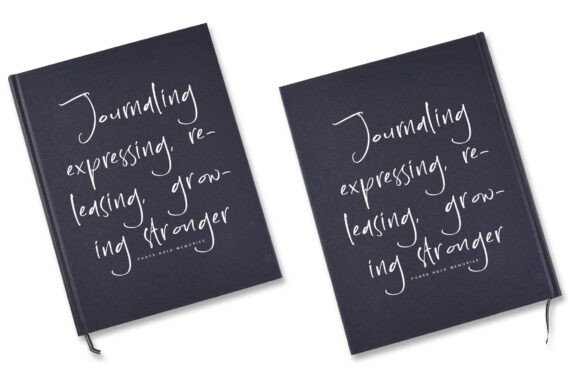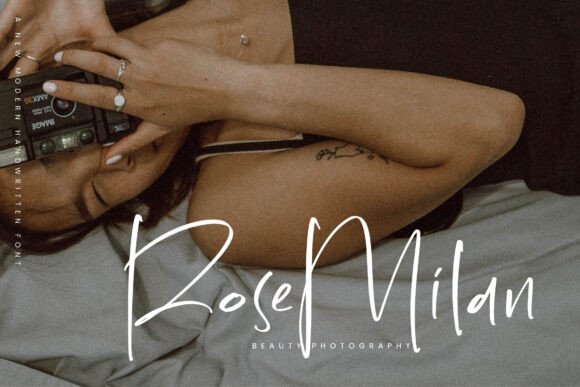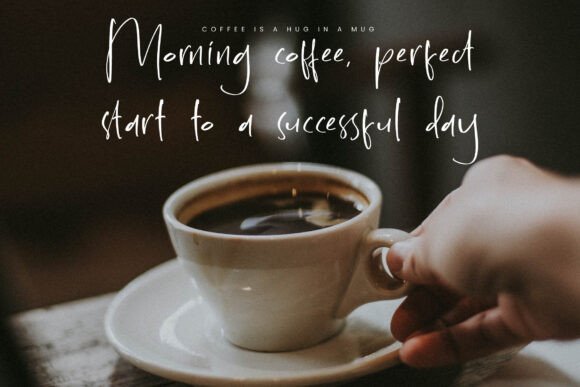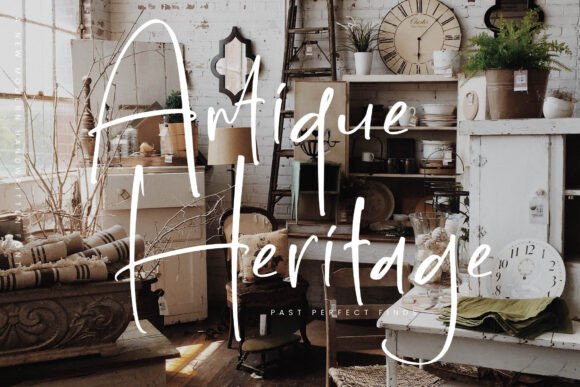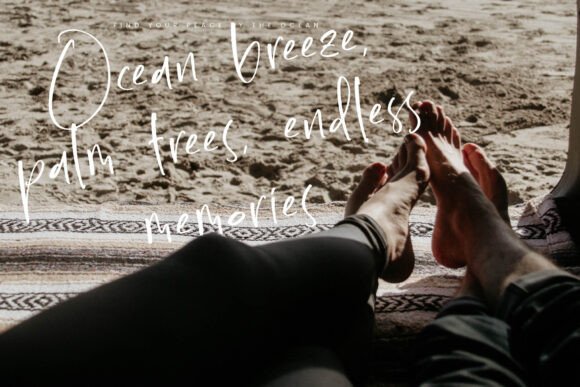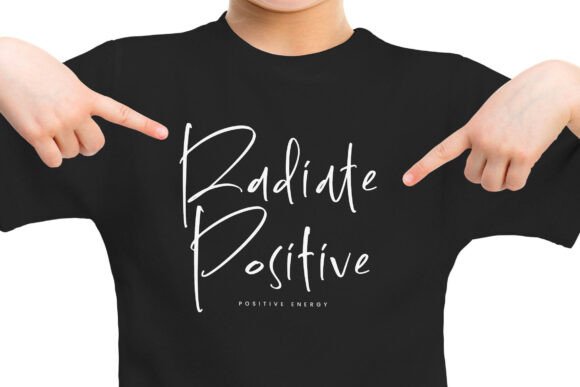
Introduction to Pearls Brooke Font
Pearls Brooke – A New Modern Handwritten Font, from Integritype Studio, perfect for any project like: logos, branding projects, homewares designs, product packaging, mugs, quotes, posters, shopping bags, t-shirts, covers books, business cards, invitation cards, greeting cards, labels, photography, watermarks, special events and all your other luxury projects that require a premium taste.
Pearls Brooke – A New Modern Handwritten Font, from Integritype Studio, perfect for any project like: logos, branding projects, homewares designs, product packaging, mugs, quotes, posters, shopping ba
Key Features of Pearls Brooke Font
Why Choose Pearls Brooke Font?
Pearls Brooke Font offers exceptional quality and versatility, making it a valuable addition to your design toolkit. Whether you’re creating for personal projects or commercial use, Pearls Brooke Font delivers professional results.